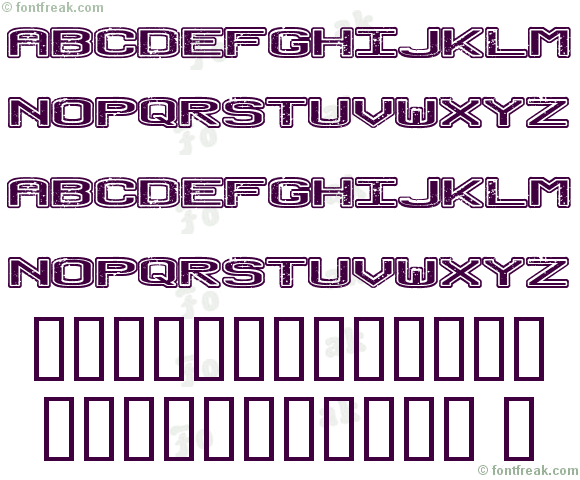
No Honor Roll Regular
No Honor Roll Regular by Chris Vile is a unique display font that stands out for its bold and distinctive character. This font features a sans-serif style with a strong geometric presence, making it versatile for various design applications. The stroke weight is consistent, providing a sturdy appearance, while subtle decorative elements add visual interest without overwhelming the overall design. The spacing is well-balanced, ensuring readability even at larger sizes, which enhances its impact in any layout.
This font is particularly suited for attention-grabbing designs. It works exceptionally well for movie posters, where a striking title can entice viewers. Additionally, No Honor Roll Regular is ideal for branding materials, such as logos and promotional posters for small businesses looking to convey a modern and edgy vibe. Its bold nature also makes it perfect for restaurant menus that want to stand out and attract diners’ attention. Furthermore, it can be used effectively in merchandise design, especially for apparel or accessories that require a contemporary look.
The target audience for No Honor Roll Regular includes graphic designers, small business owners, and content creators who seek to make a memorable impression with their visuals. This font can elevate projects by adding a touch of uniqueness and flair that resonates with viewers.